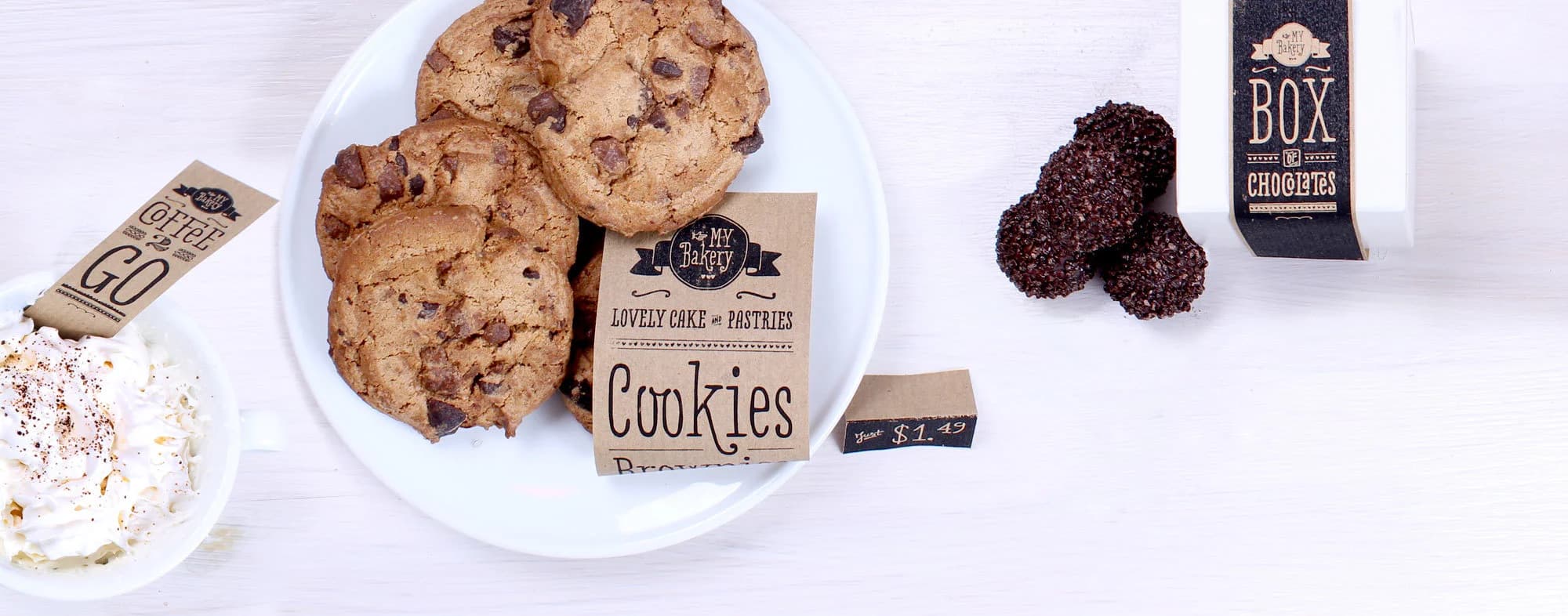
Love Potion
A display typeface from HvD Fonts with an expressive, decorative character suited to editorial and branding contexts.
Released by HvD Fonts, Love Potion is a display typeface with an expressive personality implied by its name and the foundry's track record in crafted display faces. Specific weight and style details were unavailable at time of entry. HvD Fonts are known for precise, well-made type across a range of styles.
The name and foundry context suggest a decorative display typeface, likely with script or expressive characteristics typical of HvD Fonts' display releases.